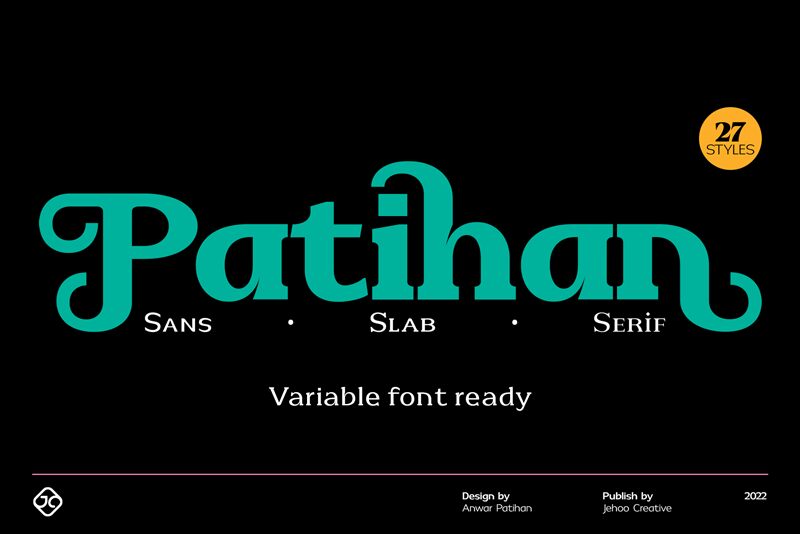
Patihan Sans Light, designed by Jehoo Creative, is a captivating sans serif font that exudes a sense of elegance and refinement. With its clean lines and delicate strokes, this light-weight typeface offers a harmonious balance between modern simplicity and timeless charm. The seamless flow of its characters creates a visually appealing and welcoming aesthetic, making it a versatile choice for a variety of design applications.
Patihan Sans Light's versatility shines through its ability to adapt to diverse design contexts. Its refined and approachable nature lends itself well to branding, editorial layouts, and digital interfaces, where its legibility and aesthetic appeal can elevate the overall visual impact. Whether used for headlines, body text, or accents, this font's versatility ensures a cohesive and visually striking presentation across a wide range of projects.